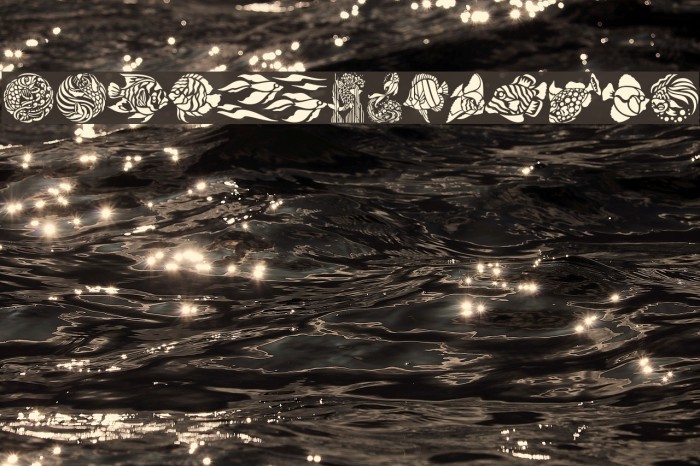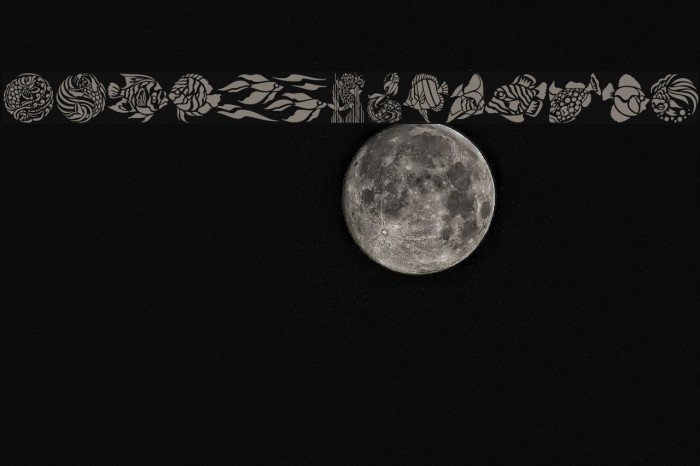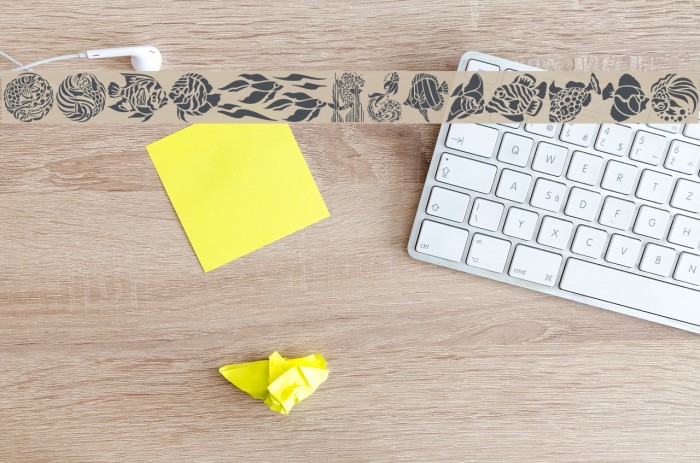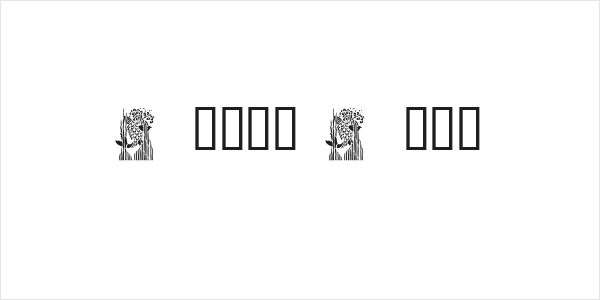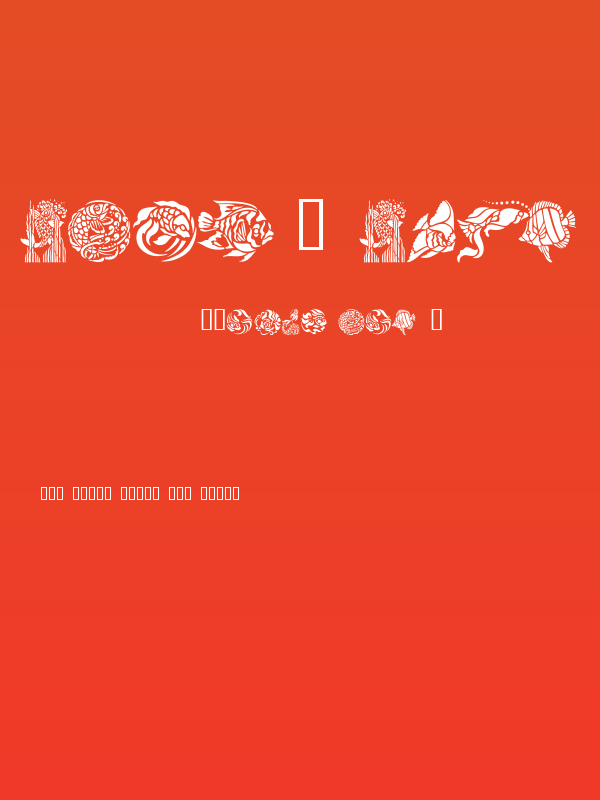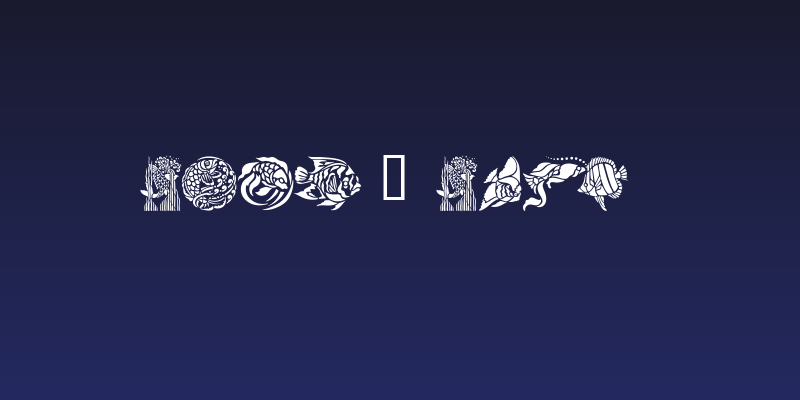
Fancy Fish Font
Fancy Fish Description
This decorative font features intricate fish designs, each character resembling a unique fish motif. The characters are highly stylized, with flowing lines and detailed patterns that mimic the natural elegance of aquatic life. The font is visually striking, with each letter and symbol crafted to resemble a different aspect of fish, from scales to fins. This artistic approach makes it ideal for projects that require a touch of nature-inspired creativity. The font's elaborate design is perfect for decorative purposes, adding a whimsical and artistic flair to any text.
| Use Case | Logos, Decorative text, Artistic projects |
| Proposed Projects | Ideal for nature-themed invitations, aquatic event posters, children's book illustrations, or any project requiring a whimsical, artistic touch. |